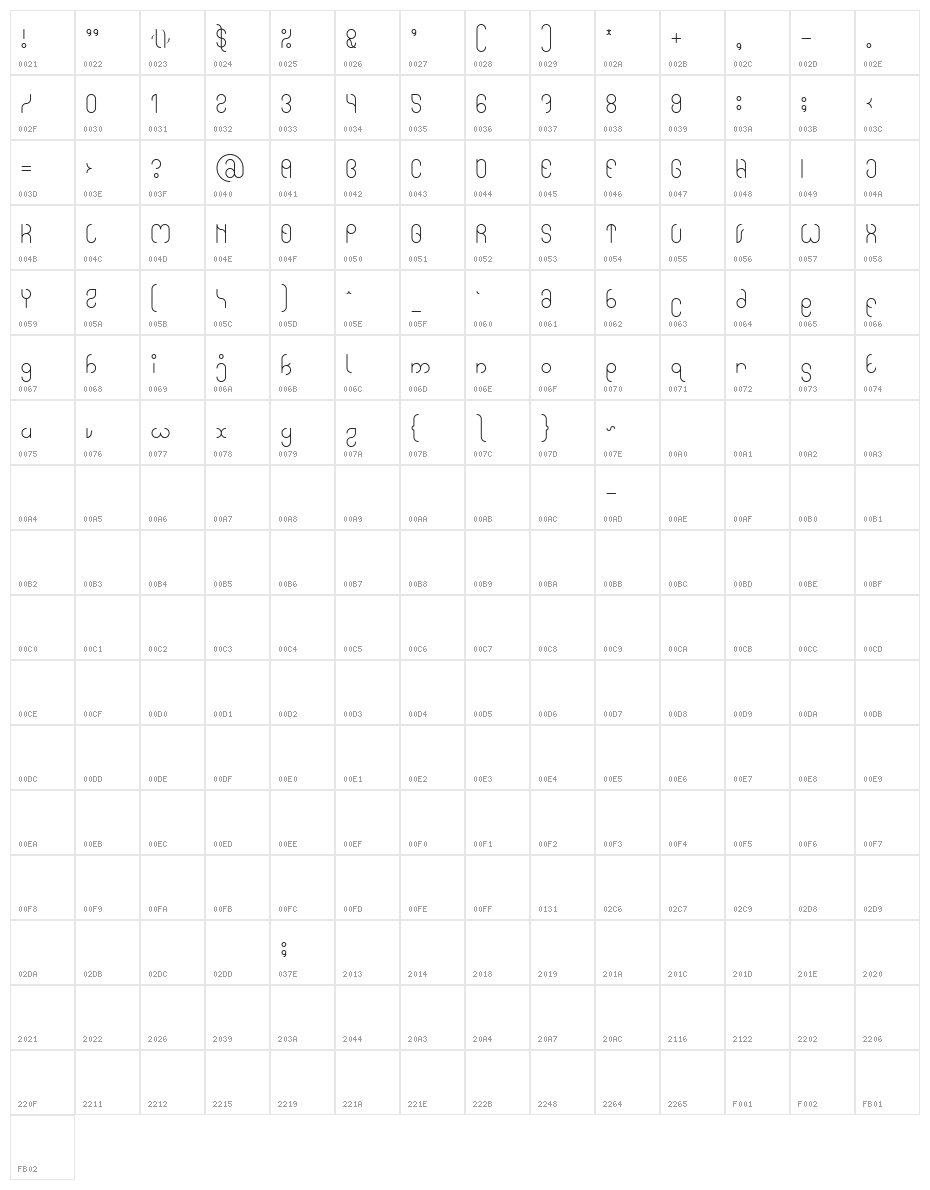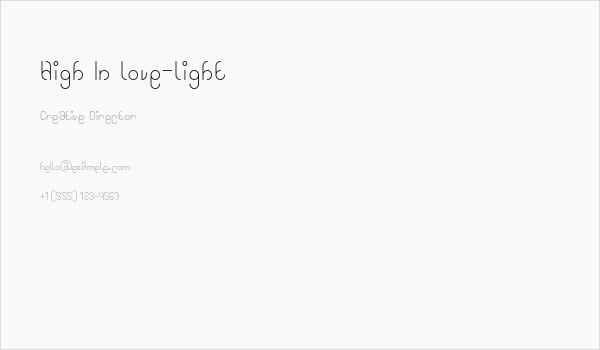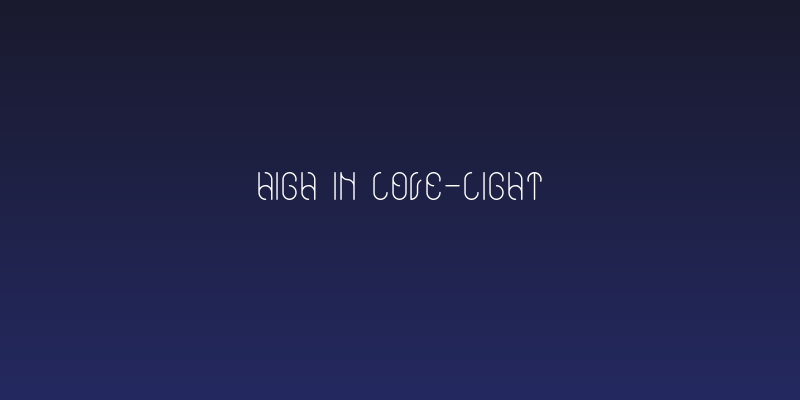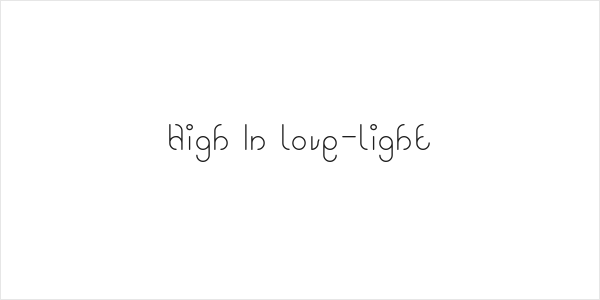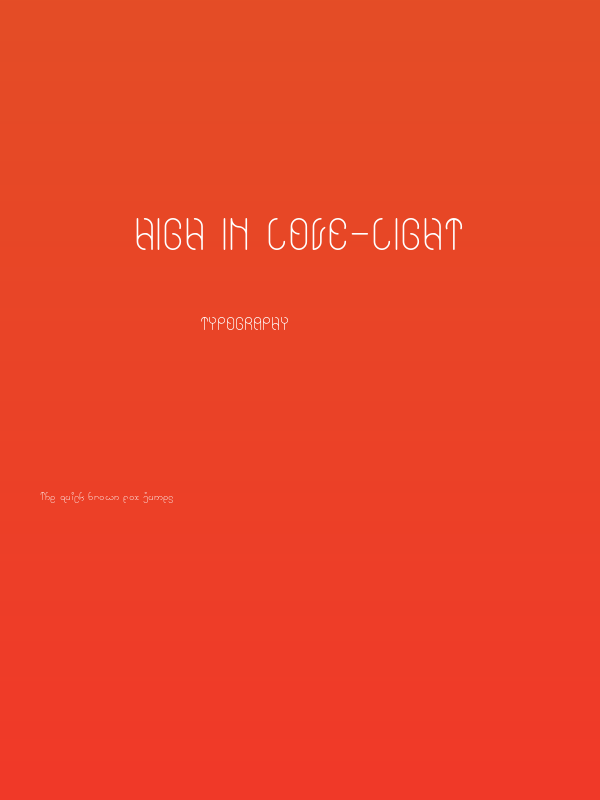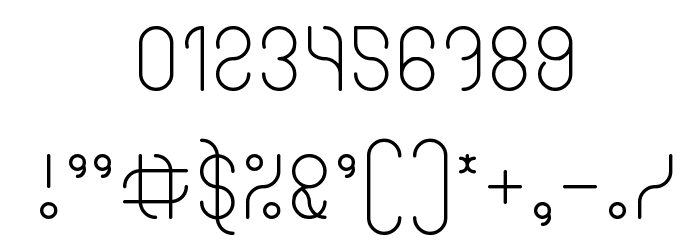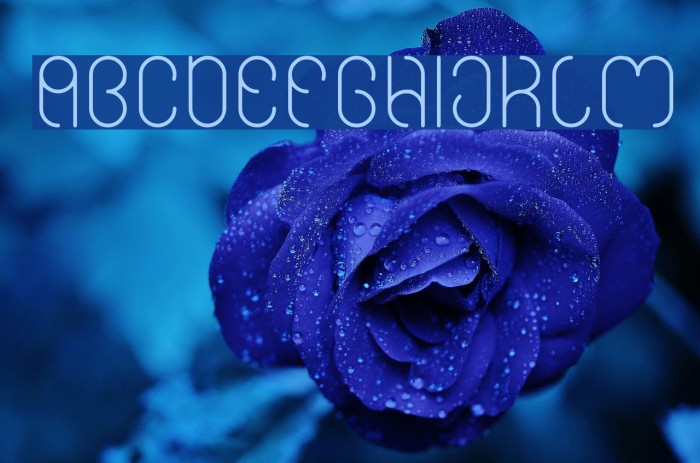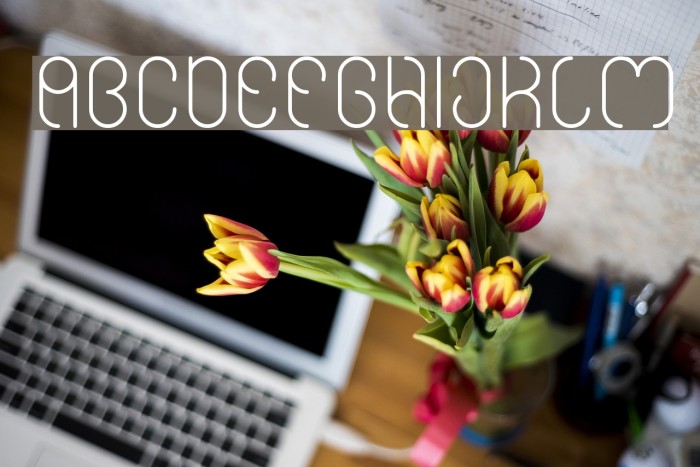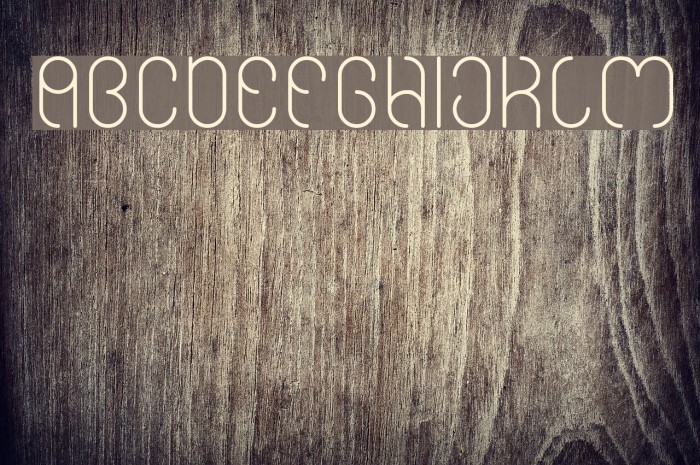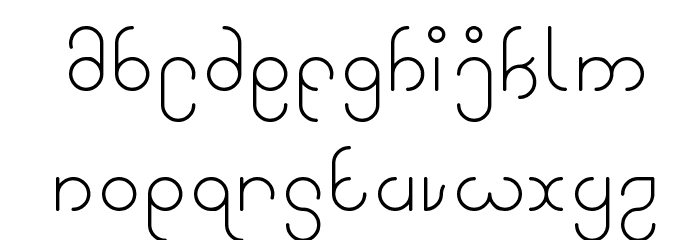
High In love-light Font
High In love-light Description
This font features a unique and playful design with rounded, looping strokes that give it a whimsical and modern appearance. The characters are distinct with a consistent flow, creating a sense of movement and fluidity. The uppercase and lowercase letters maintain a cohesive style, while the numerals and special characters complement the overall aesthetic. The font's design is both artistic and functional, making it suitable for creative projects that require a touch of elegance and fun.
| Proposed Projects | Ideal for branding, invitations, greeting cards, and creative posters. |